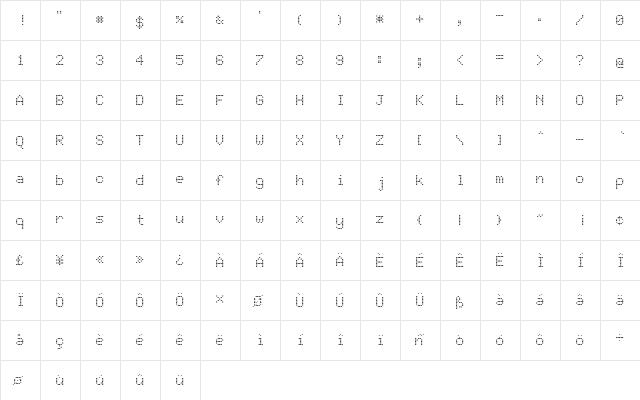
JD LCD Rounded Regular
| Designer | Jecko Development |
Design Context for JD LCD Rounded Typeface
JD LCD Rounded uses gentle rounded endings to create a warm, inviting typographic personality — less corporate than geometric sans, more refined than playful display fonts.
A natural fit for tech startups, health and wellness brands, children's products, and friendly consumer apps.
Font Pairing: Pairs well with a rounded or humanist sans for body copy, maintaining the friendly tone without relying on JD LCD Rounded to carry extended reading.
Pro Tip: Pair JD LCD Rounded with a geometric sans for a balanced system — the rounded softness works as a warm counterpoint to harder-edged companions.